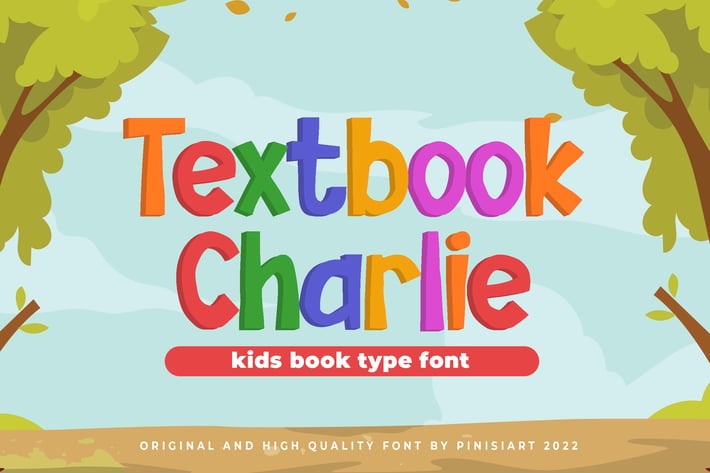
Textbook Charlie - Kids font
Happiness will spread all over the world, when Textbook Charlie being used as the text.
Suit perfectly for kids themes books market, online games, stationary, school supplies font, poster, birthday invitation, youtube covers, youtube thumbnails, social media page covers and so on...